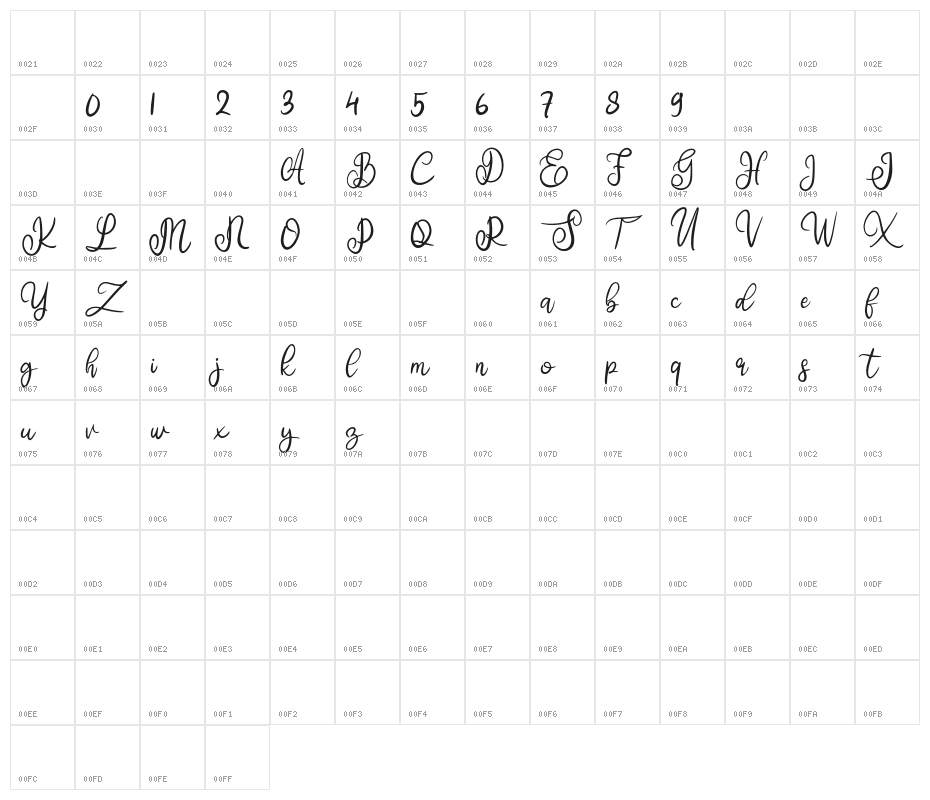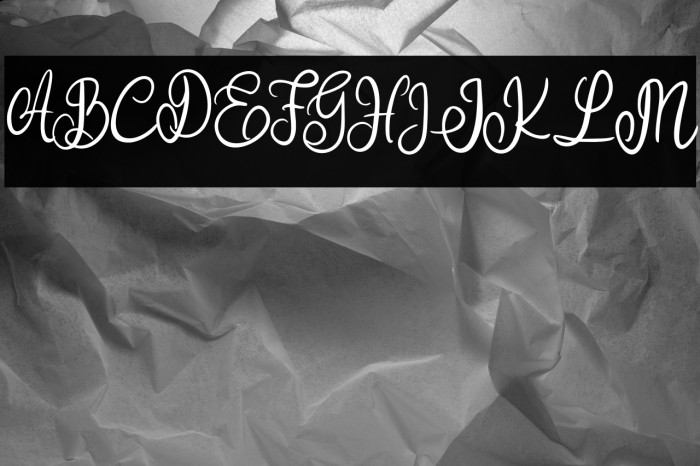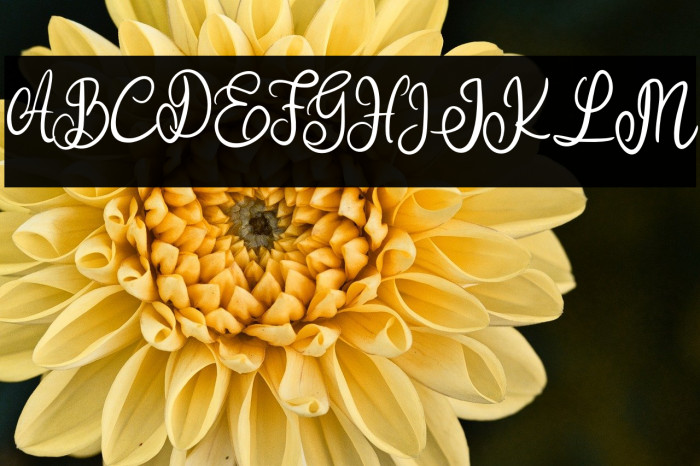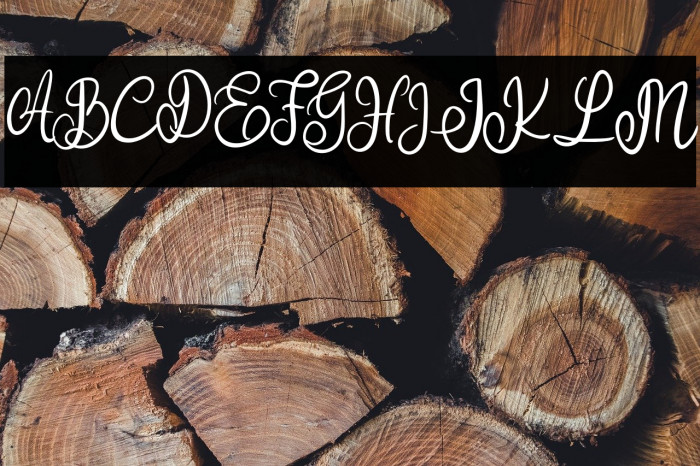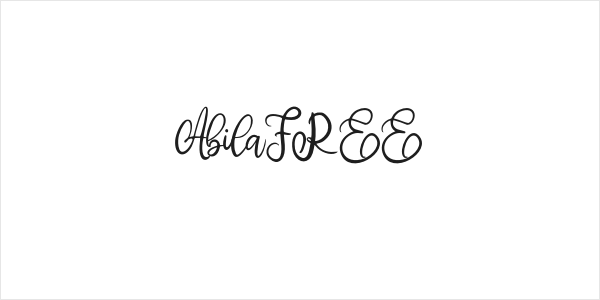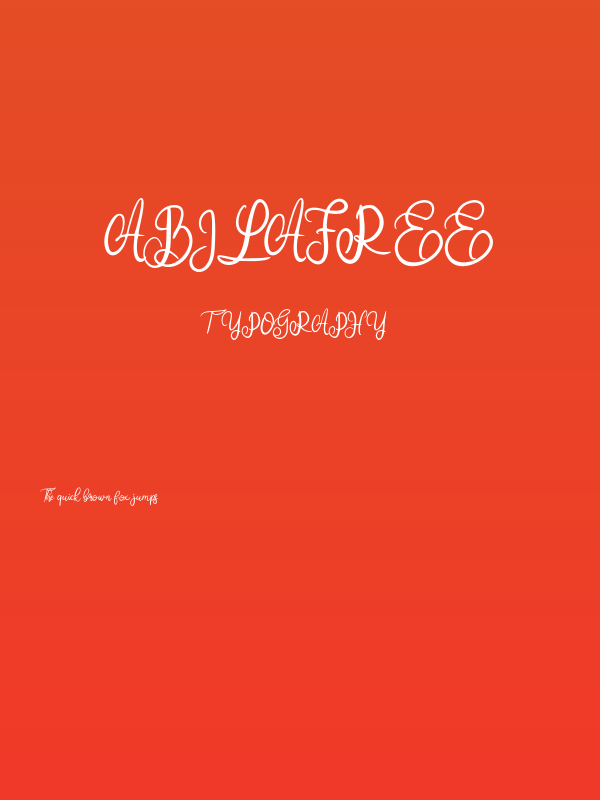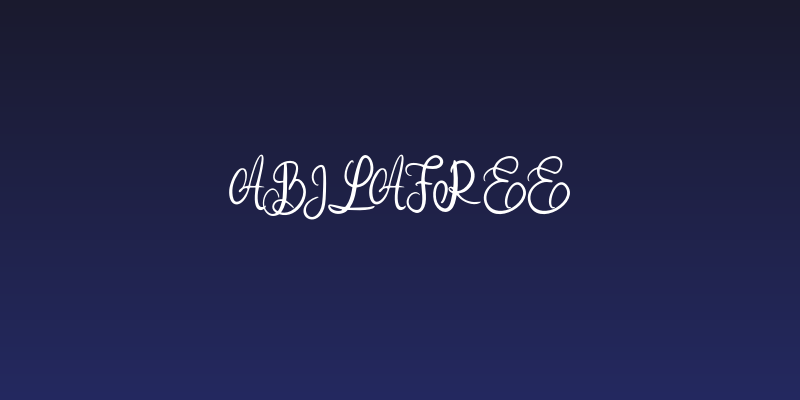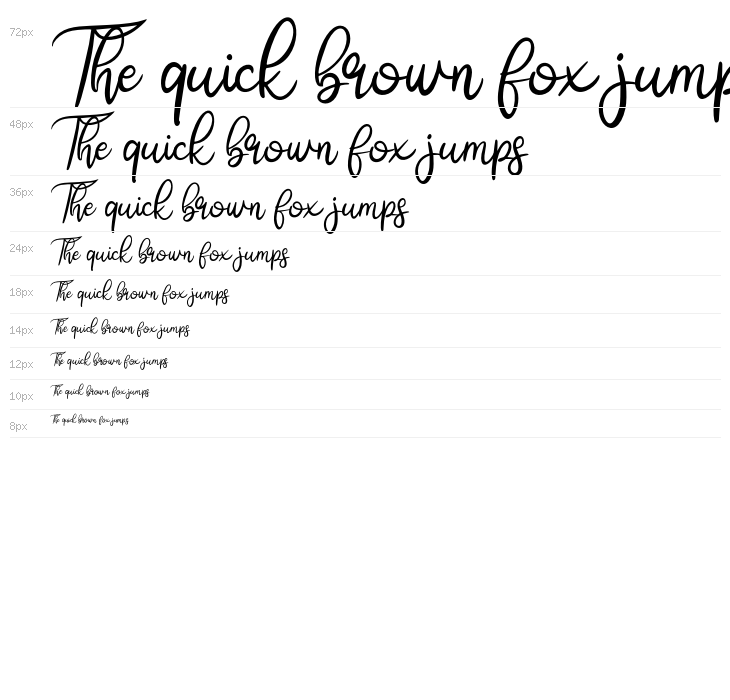
AbilaFREE Font
AbilaFREE Description
This font features a playful and elegant script style, characterized by its flowing, connected letters. The uppercase letters exhibit a whimsical flair with loops and curves, while the lowercase letters maintain a consistent, smooth flow. The numerals are distinct and easy to read, complementing the overall script style. The special characters are designed to blend seamlessly with the alphabet, maintaining the font's cohesive look. This font is ideal for projects that require a touch of elegance and creativity, such as invitations, greeting cards, and branding materials.
| Overall Style | Elegant, Playful |
| Proposed Projects | Ideal for invitations, greeting cards, branding, and creative projects. |